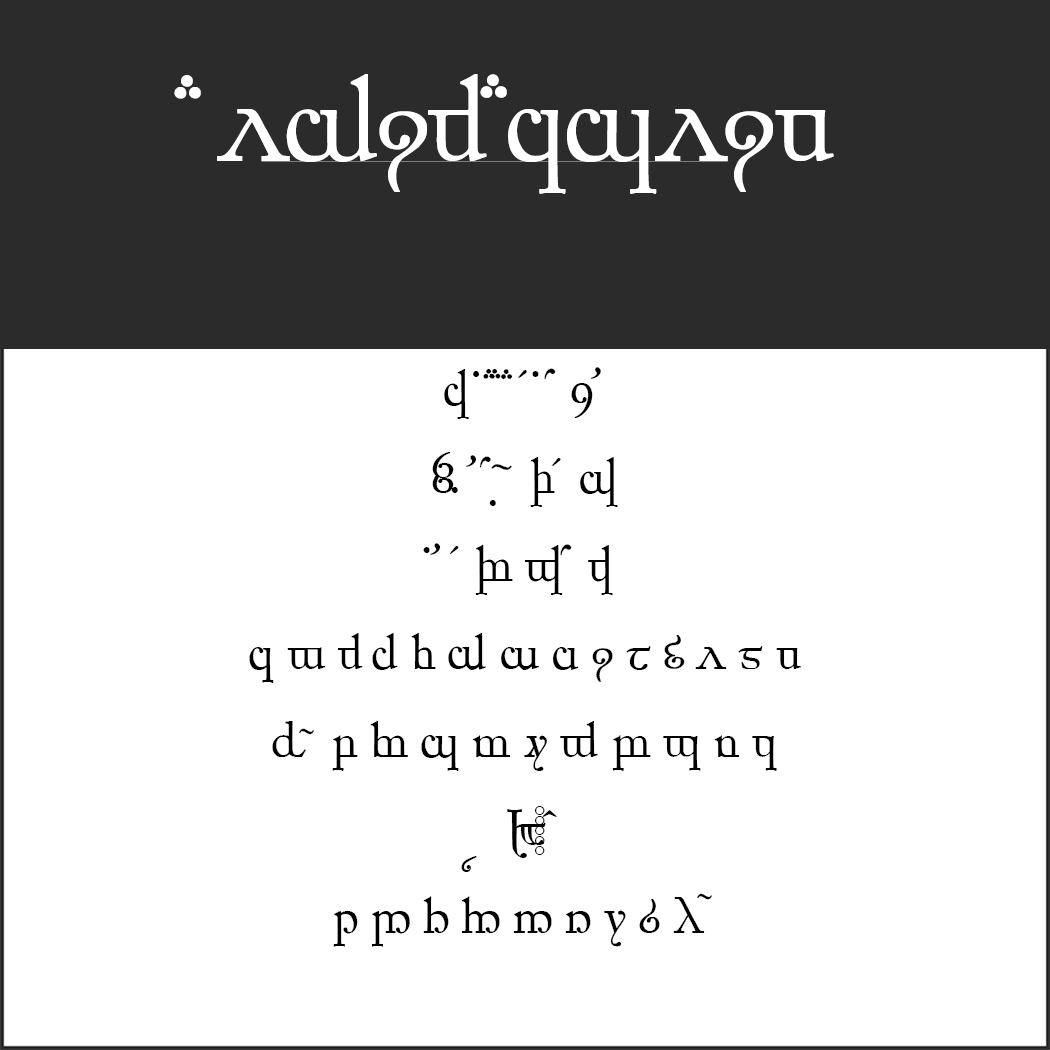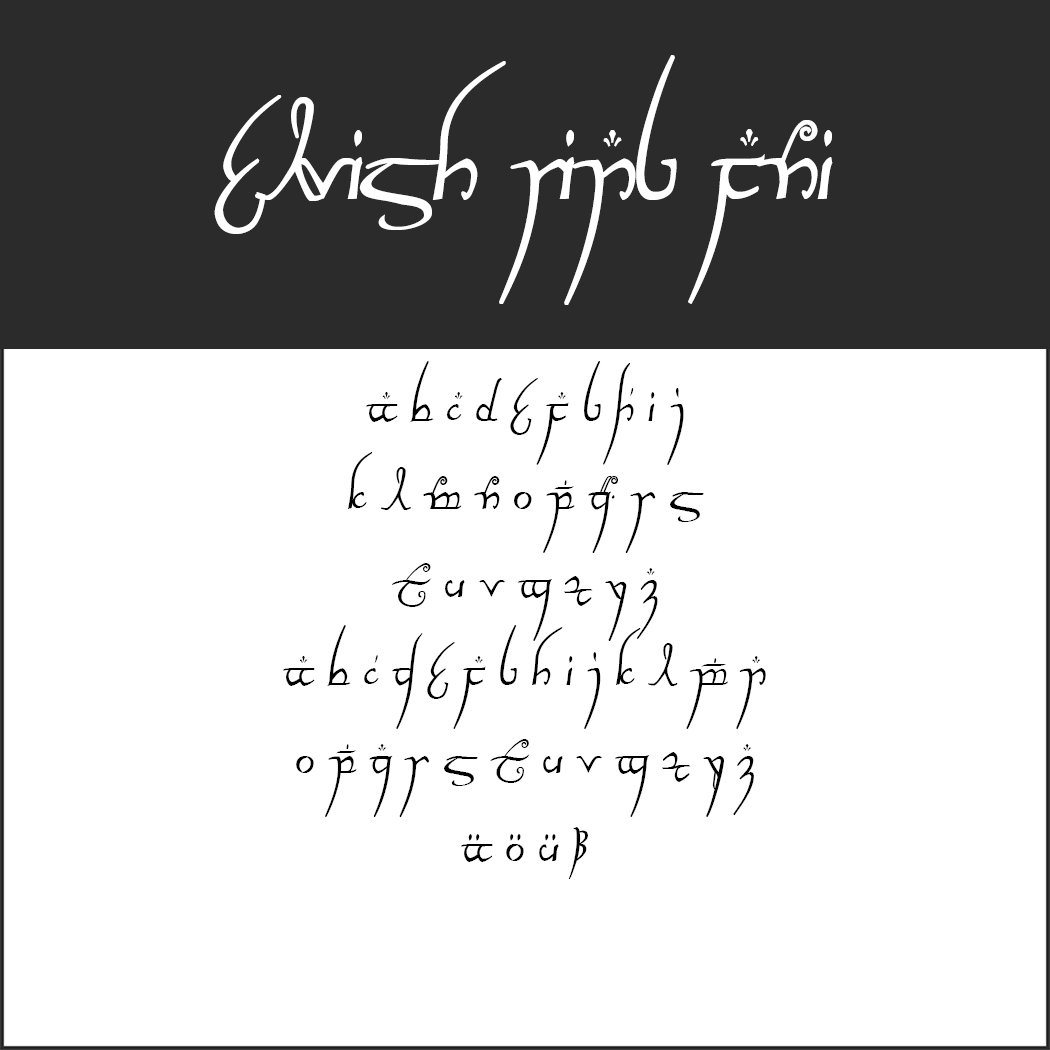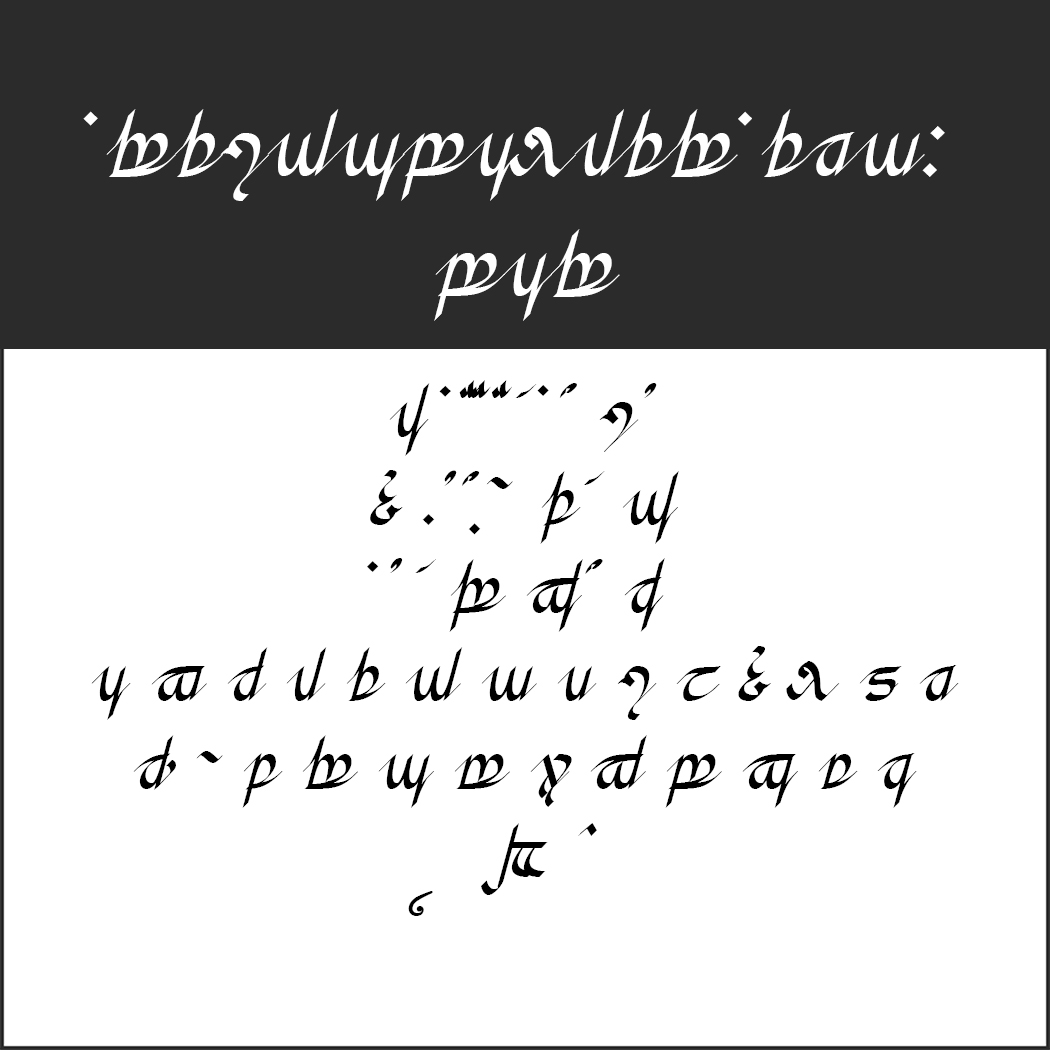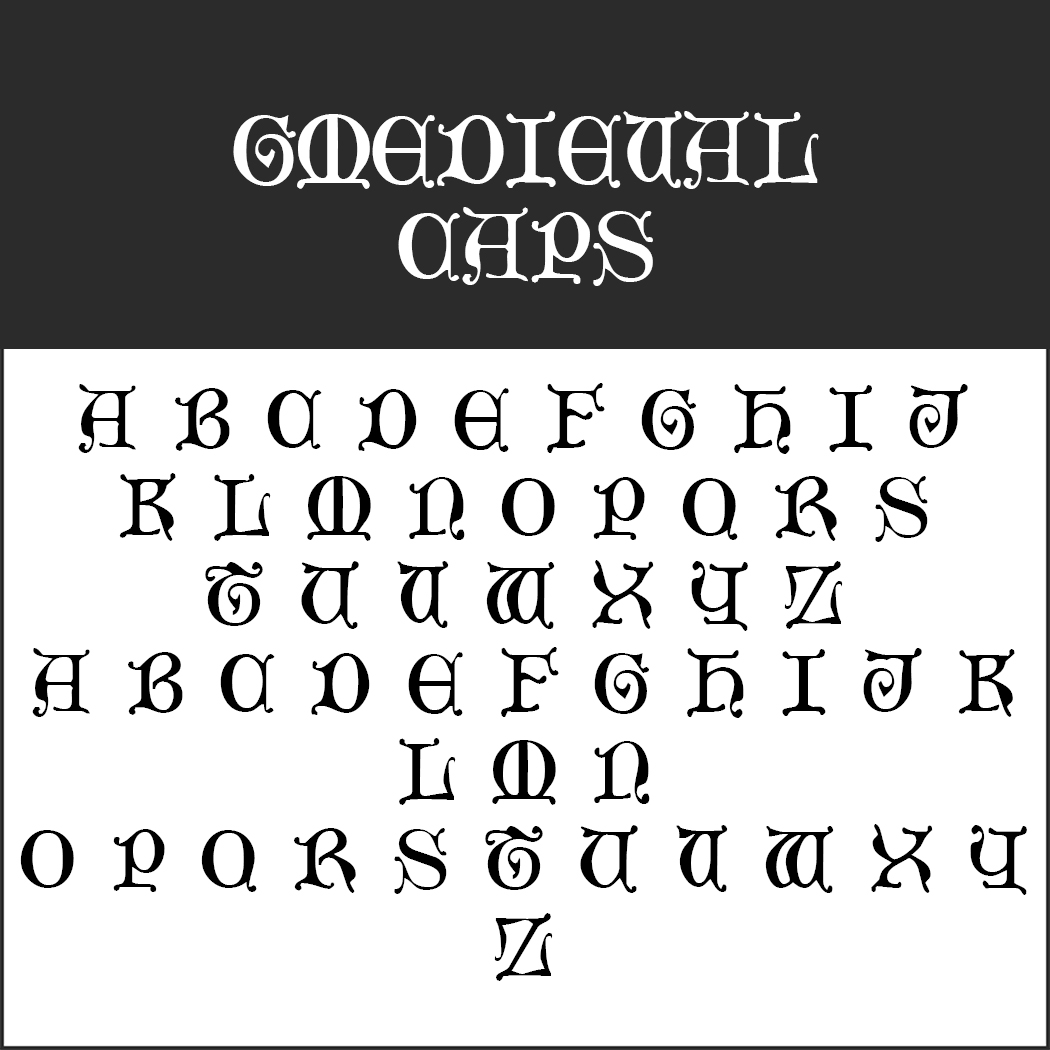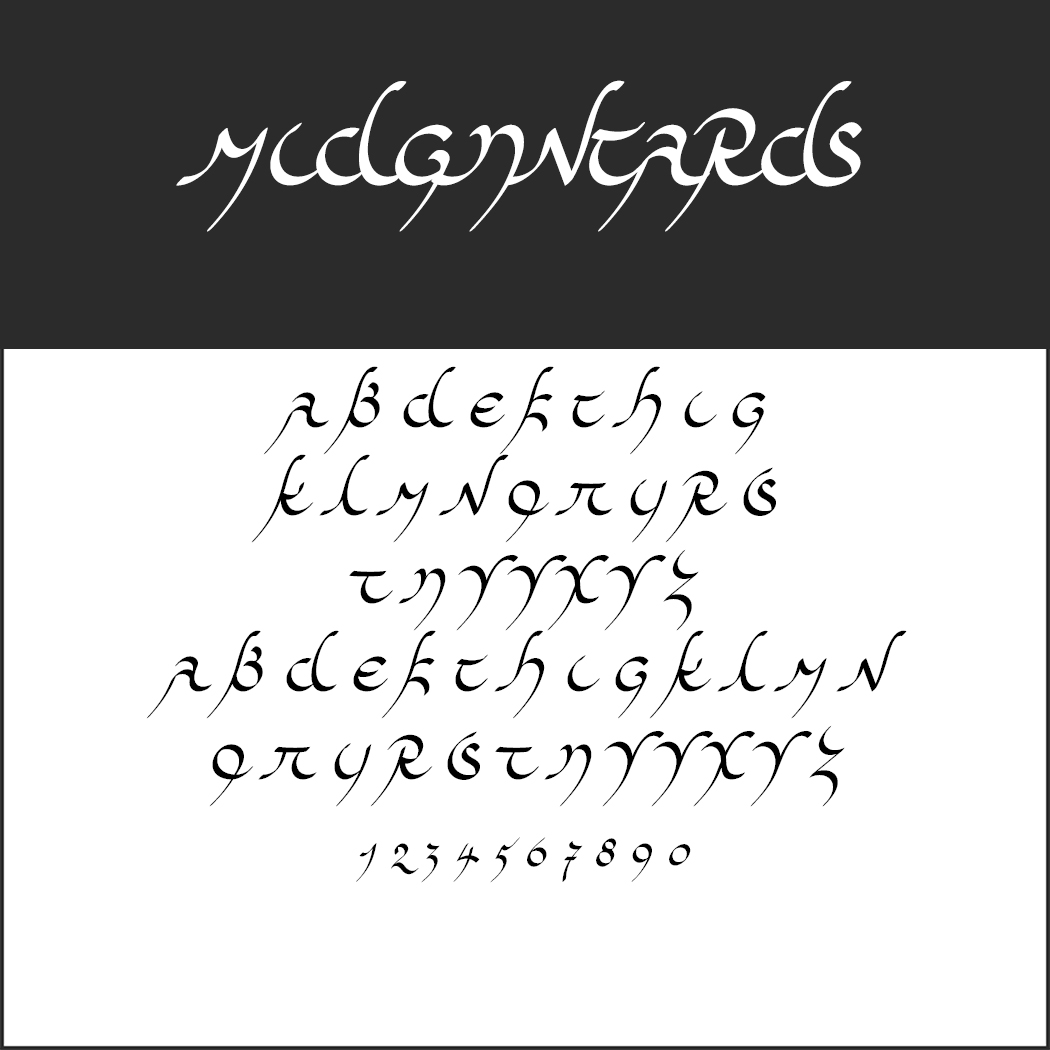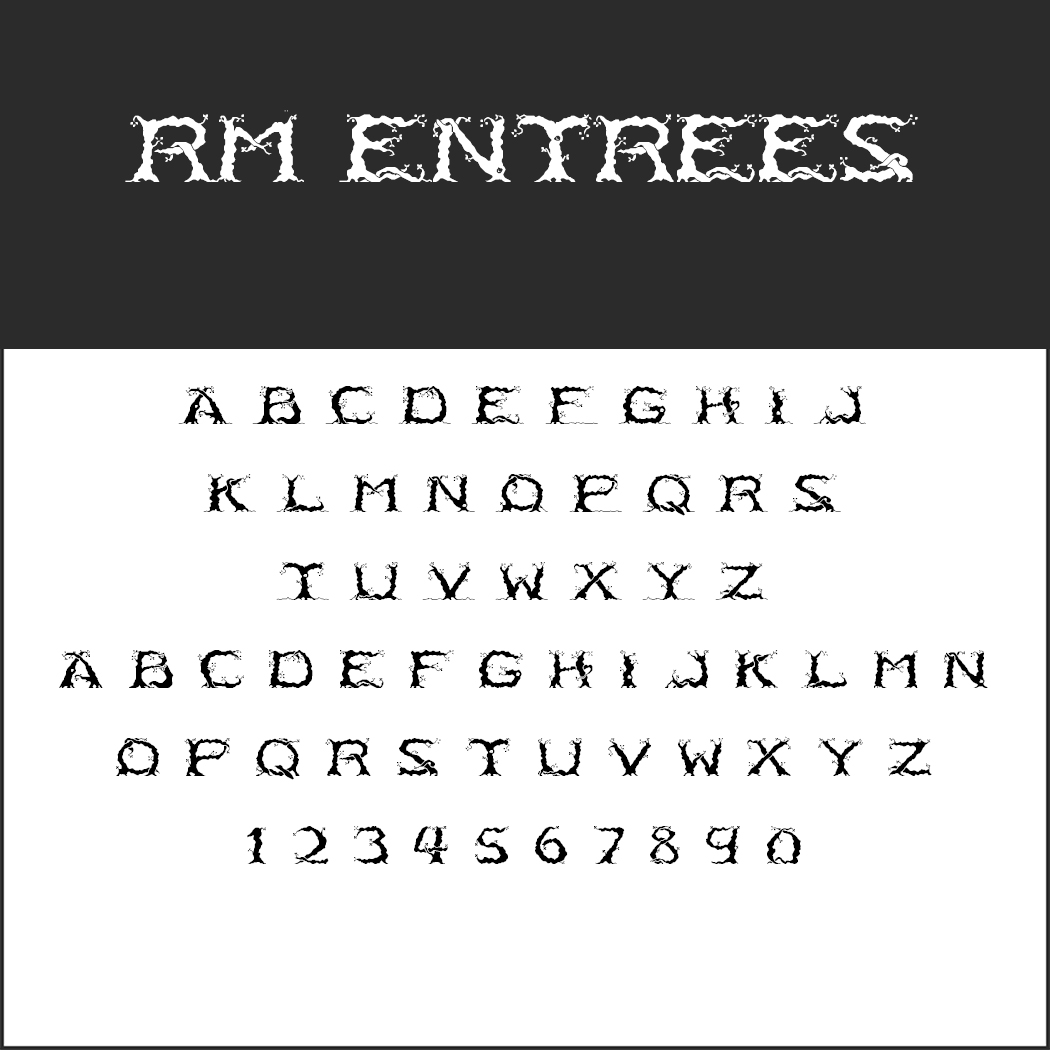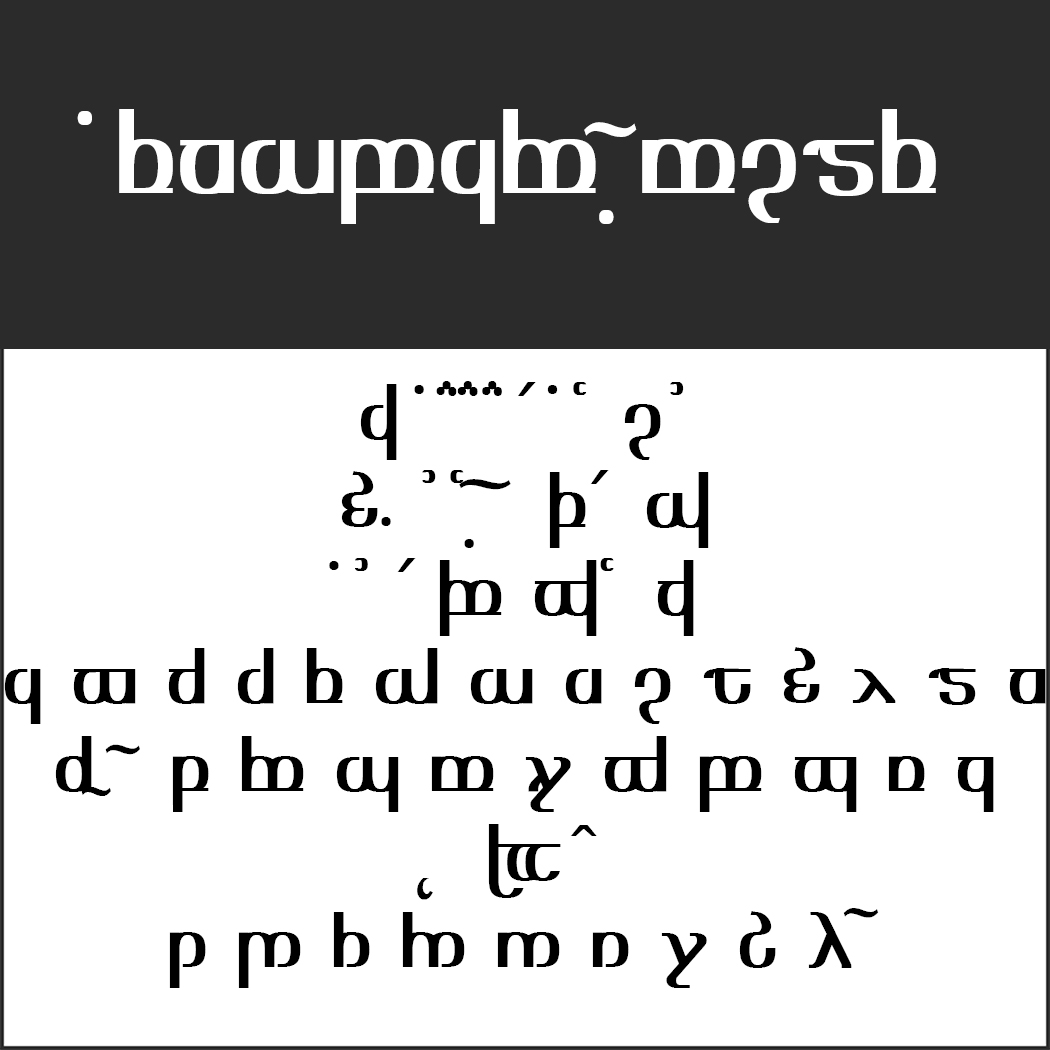
“The Lord of the Ring” fonts straight from Middle-earth
“The Lord of the Rings” font is as well-known as Tolkien’s books and the spectacular film adaptations. Read on to learn how to use these fonts and what other fonts Middle-earth has in store.
Under the spell of “The Lord of the Rings” font
Aficionados of the world of J. R. R. Tolkien will shake their heads in bewilderment when they hear the phrase “The Lord of the Rings” font. Of course, they know only too well that there is no such thing as one “The Lord of the Rings” font but rather a sophisticated system of languages and scripts which reveals the true genius of the British author.
Being both a writer and linguistic, Tolkien was a perfectionist in his field. This is why the different languages in “The Lord of the Rings” universe were adapted and changed over time which is also reflected in the associated fonts.
In addition to these fonts, which Tolkien himself developed for the inhabitants of his Middle-earth, there are other fonts used on books, movie posters and DVD covers etc. to market his legacy. Also people who are not hardcore fans of Tolkien’s work are familiar with the font made popular by the film adaptations that attracted millions of viewers to movie theatres.
A German edition of Der Herr der Ringe by J.R.R. Tolkien is displayed against a red background. The cover showcases the One Ring glowing with Elvish Herr der Ringe Schrift.
The languages and scripts in the “Lord of the Rings” universe are literally a science in themselves. The elves alone have different languages, such as High-elven Quenya or Sindarin, that continue to evolve as in real life. Moreover, there are the Cirth runes which Tolkien invented so that the countless inhabitants of Middle-earth could write their Angerthas languages.
In this article, we focus on the fonts that are readily available on the internet. And these are quite a few.
“The Lord of the Ring” fonts to download
There are some fonts on the web that replicate typefaces from “The Lord of the Rings” universe. We have rounded up the best-known fonts related to Middle-earth for you.
1 Readable Elvish fonts
A character set chart for the Ringbearer font, showcasing uppercase letters, accented characters, and numbers in a stylized, fantasy-inspired Herr der Ringe Schrift.
Ringbearer
The Ringbearer font is a replication of the font used in the logo of Peter Jackson’s “The Lord Of The Rings” film trilogy.
Aniron font sample showing uppercase and lowercase letters, umlauts, and numbers in a decorative, fantasy-inspired Herr der Ringe Schrift style on a black and white background.
Aniron
Named after an Elvish song in “The Lord of the Rings” film adaptations, this font combines medieval and Cyrillic elements.
Stylized font sample labeled Fanjofey, inspired by Herr der Ringe Schrift, with uppercase and lowercase alphabet letters, including accented characters ä, ö, ü, and ß, displayed on a black and white background.
Fanjofey
This font contains actually readable Latin letters combined with elements from Tengwar letters to give this font the typical “The Lord of the Rings” look.
Chart titled Medieval Caps featuring the full English alphabet in a decorative medieval-style uppercase font, reminiscent of Herr der Ringe Schrift, with each letter displayed twice in black on a white background.
Mediaeval Caps
This font uses medieval components and visual elements borrowed from “The Lord of the Rings”.
A display of a distressed, grunge-style font inspired by Herr der Ringe Schrift shows uppercase letters A–Z and numbers 0–9, with “RM ENTREES” at the top using the same font on a dark background.
RM Entrees
The designer of this font got his inspiration from the Ents in “The Lord of the Rings”. This font will not immediately be associated with the novels or films but maybe at second or third glance.
The image shows the Morris Roman font, a stylized, medieval-inspired typeface often associated with Herr der Ringe Schrift, featuring uppercase and lowercase letters, special characters (ä, ö, ü), and numbers 0–9.